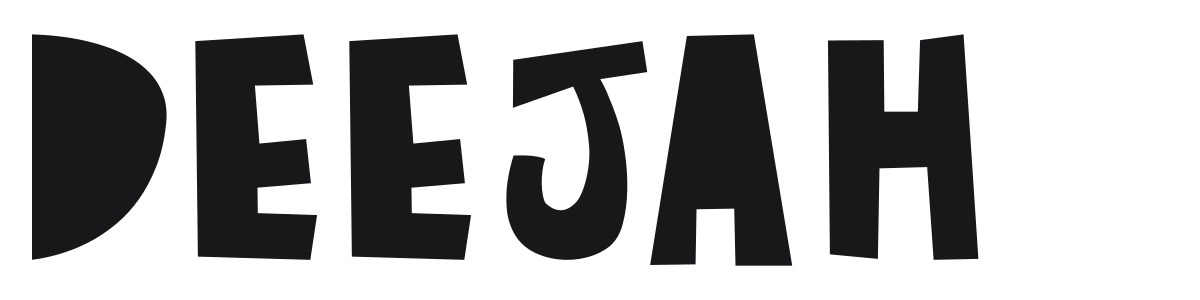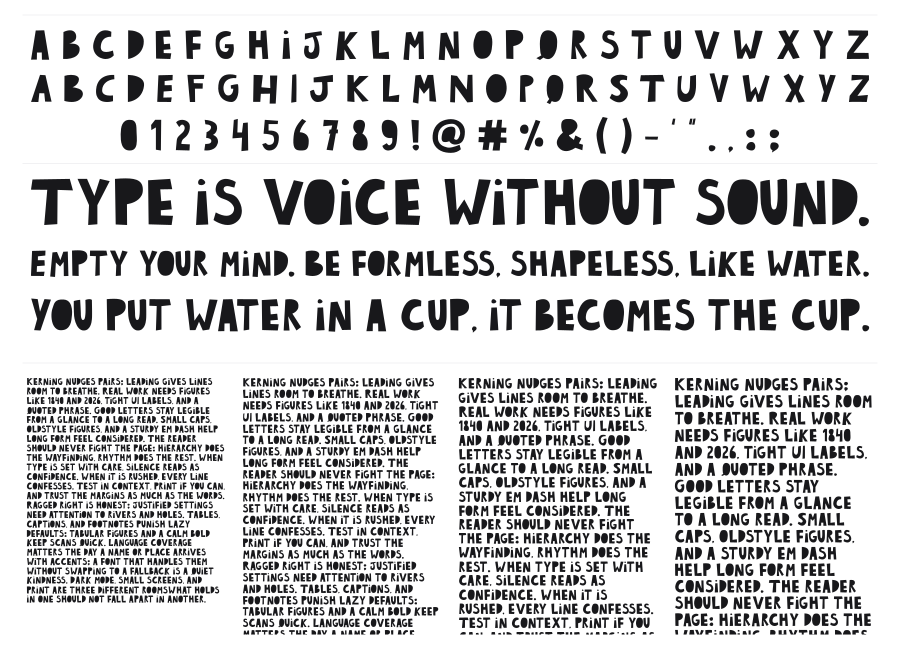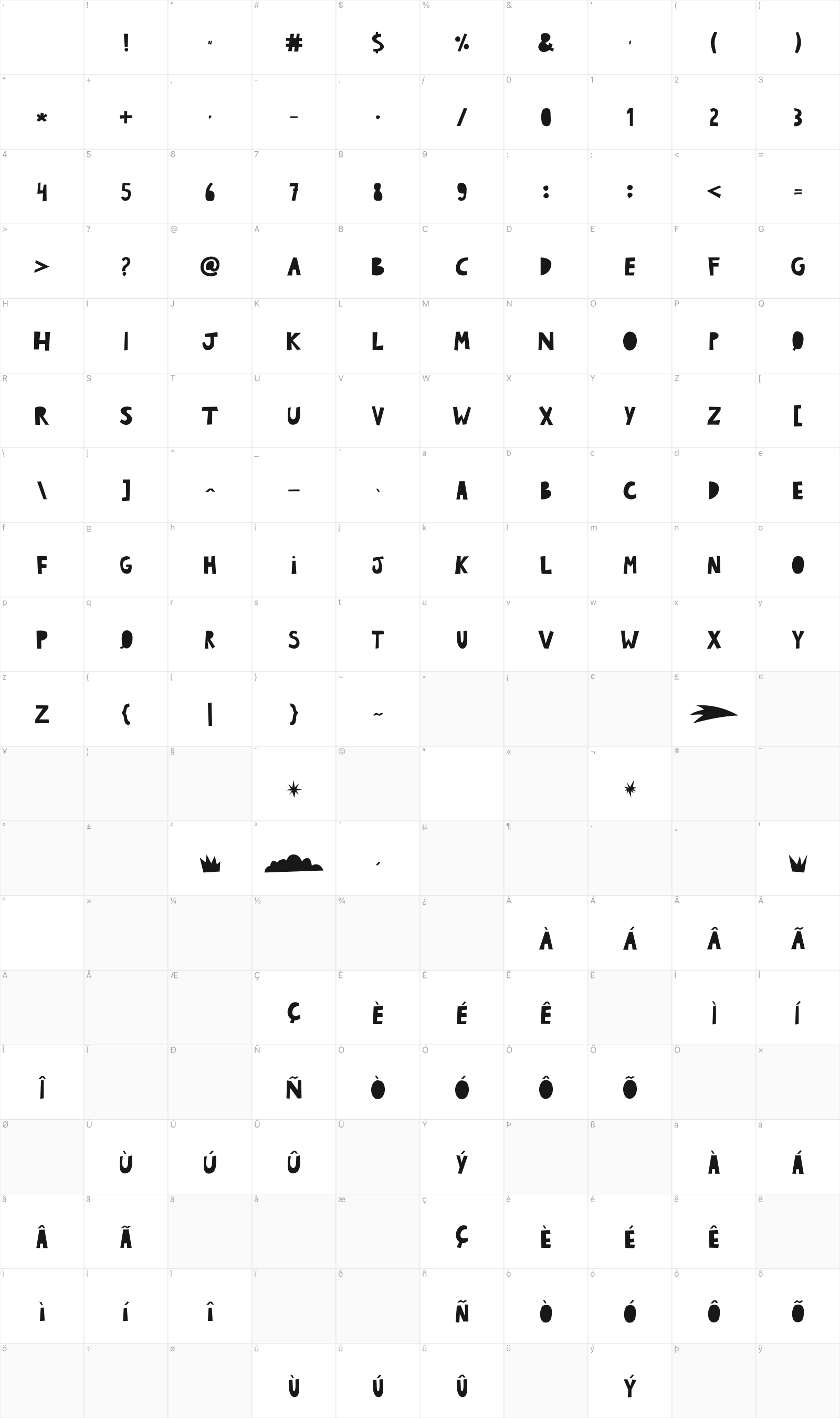
Deejah
Deejah is a bold display font born from the paper-cutting artwork of Brazilian artist Catarina Dee Jah. Each character carries the imperfect, tactile quality of hand-cut letterforms, with irregular outlines and unexpected voids that set it apart from any digital imitation of handcraft. It brings genuine artistic provenance to headlines, posters, and branding where personality matters.